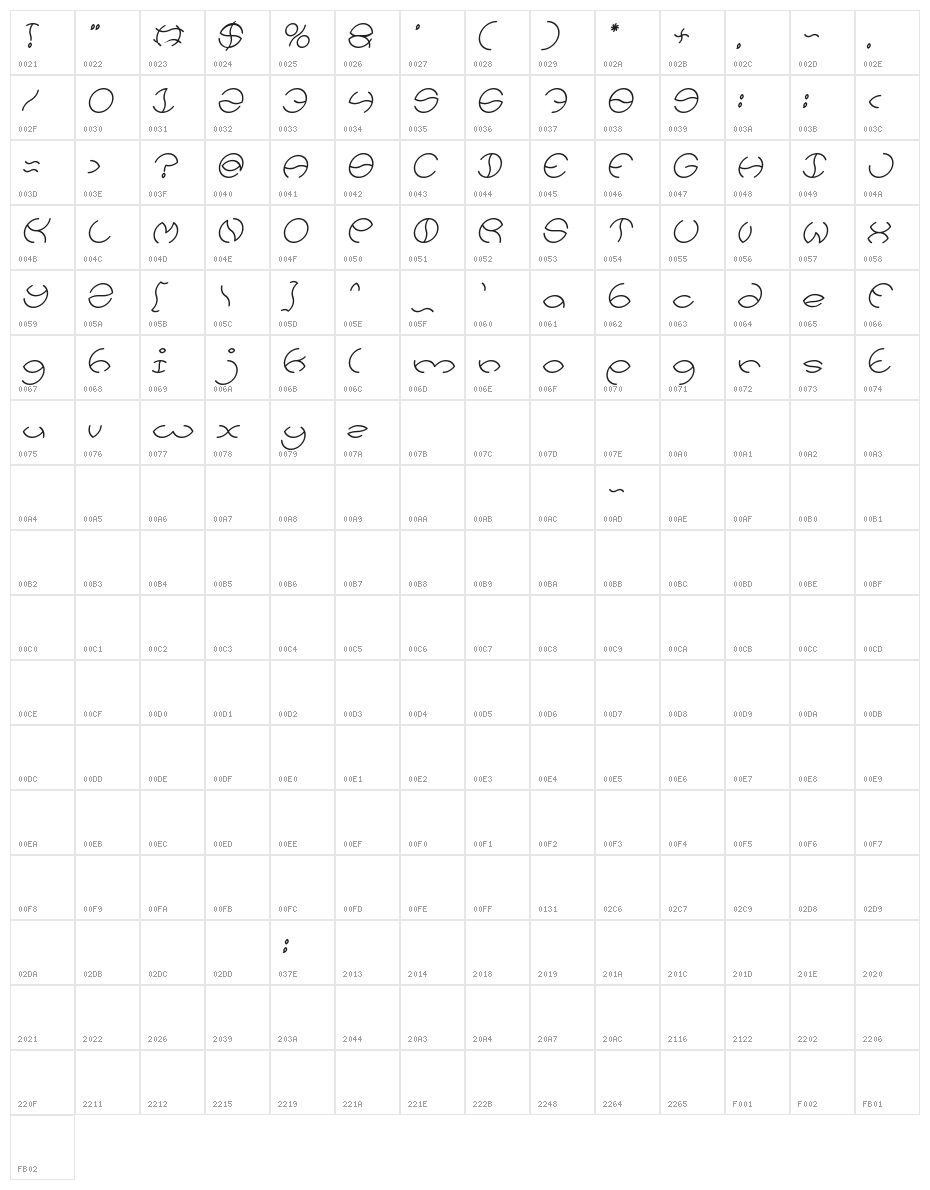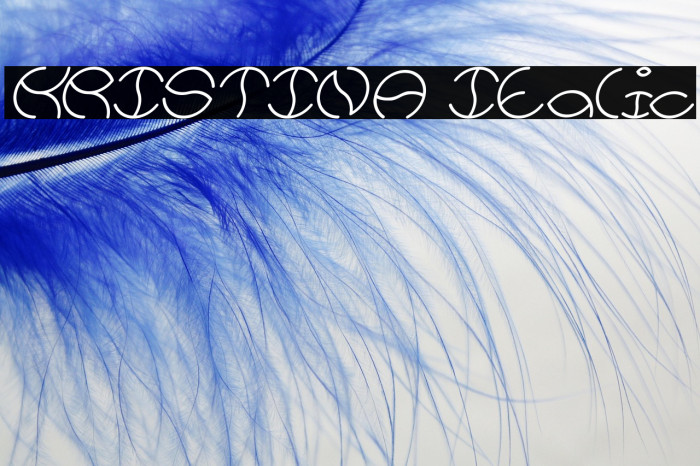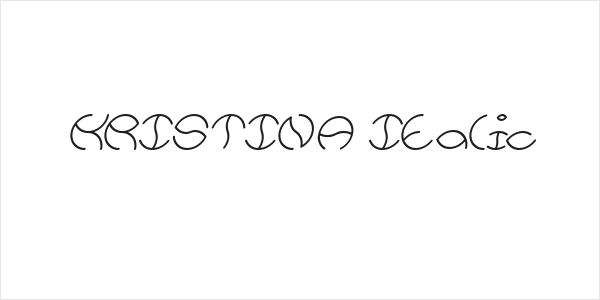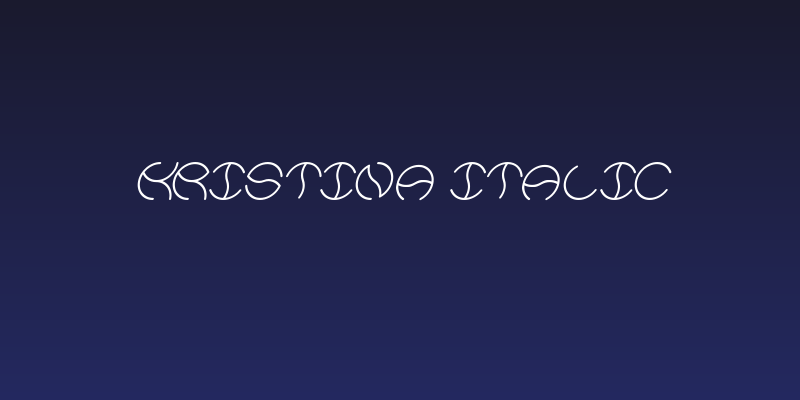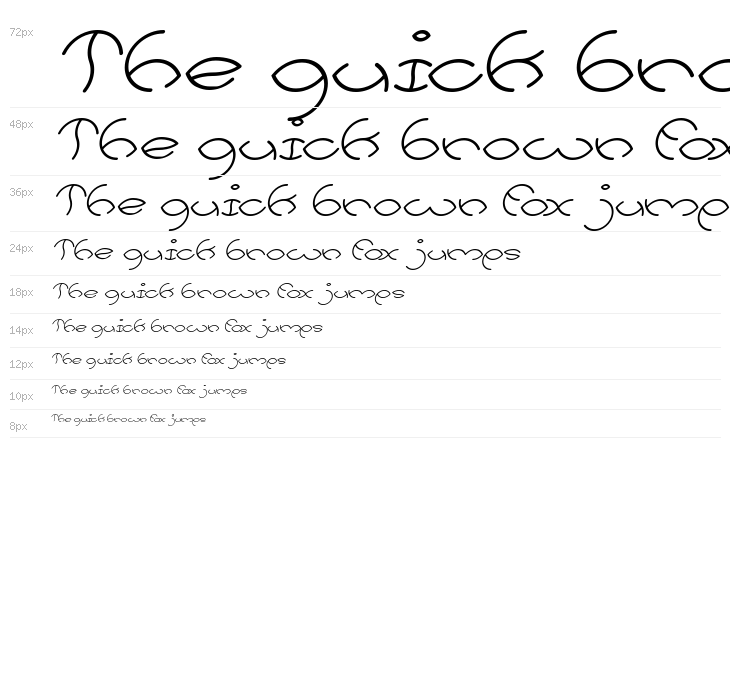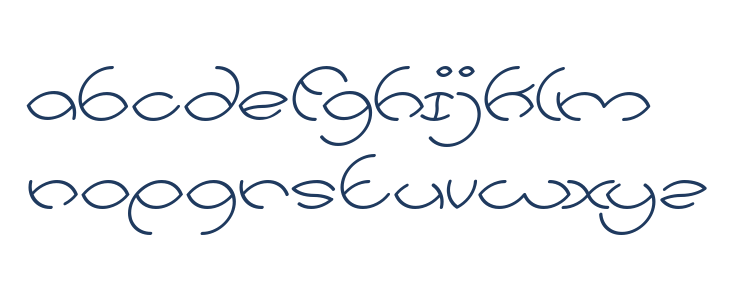
KRISTINA Italic Font
KRISTINA Italic Description
This font features a unique and artistic design with a flowing, cursive style. The characters are interconnected with smooth, rounded strokes, giving it an elegant and sophisticated appearance. The uppercase and lowercase letters maintain a consistent style, with a slight slant that enhances its italic nature. The numbers and special characters follow the same design principles, ensuring uniformity across all glyphs. The font's distinctive loops and curves make it stand out, providing a modern yet timeless feel. Its artistic flair makes it suitable for creative projects that require a touch of elegance and individuality.